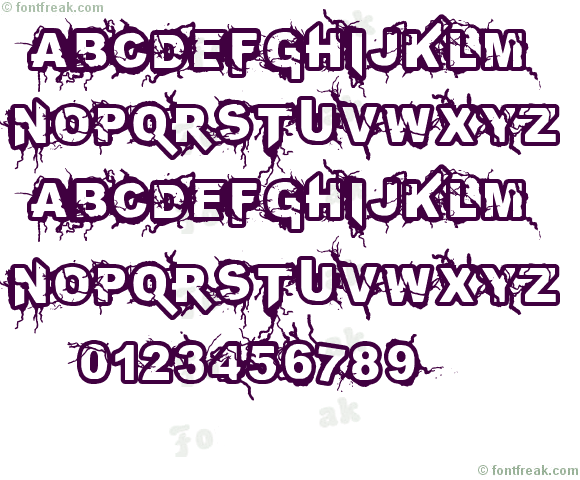
INFECTED
About INFECTED
The INFECTED font by Pi Luo Chiu is a striking display typeface that captures attention with its unique aesthetic. This freeware font features a bold, irregular design characterized by jagged edges and a distressed appearance, which evokes a sense of chaos and urgency. With a medium stroke weight and minimal contrast, it creates a visual impact that is both captivating and somewhat unsettling. The spacing between letters is deliberately uneven, enhancing the font's raw and organic feel, making it ideal for designs that aim to stand out.
This distinctive typeface is particularly well-suited for a variety of creative applications. It can be effectively used for horror movie posters, where its unsettling appearance can amplify the theme of fear and tension. Additionally, INFECTED is a fantastic choice for album covers in the punk and alternative music genres, capturing the rebellious spirit of these styles. Graphic designers may also find it useful for creating eye-catching promotional materials for events or festivals that embrace a gritty aesthetic. Moreover, it can add an edgy touch to branding for businesses in unconventional sectors, such as tattoo shops or skateboarding brands.
Targeting graphic designers, small business owners, and content creators, the INFECTED font offers versatility and an alternative edge that appeals to those looking to break away from conventional typography. Its ability to convey mood and emotion makes it a powerful tool in any designer's arsenal.
Overall, the INFECTED font stands out for its bold, expressive character and its capacity to evoke a strong response from viewers. Whether you’re crafting a striking visual identity or seeking to make a statement, the INFECTED font free download provides an exciting option to elevate your creative projects.